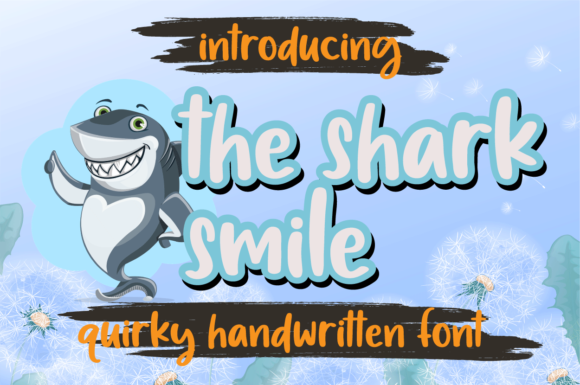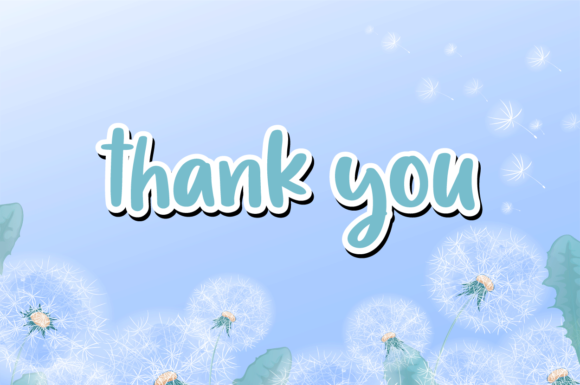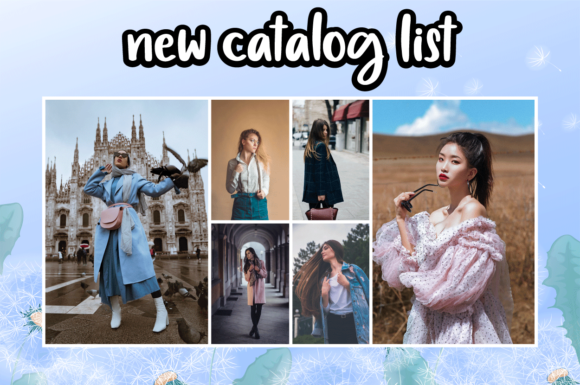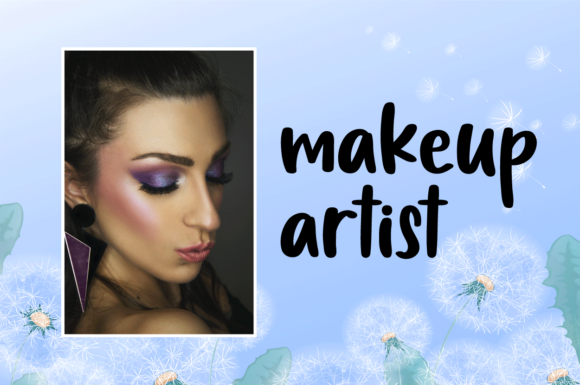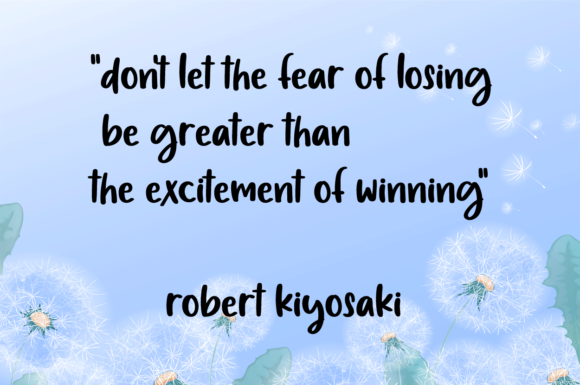
The Shark Smile Font
About The Shark Smile Font
The Shark Smile a new, fresh & simple handwritten font. Whether you’re looking for fonts for Instagram or calligraphy scripts for DIY projects, this font will turn any creative idea into a true piece of art!